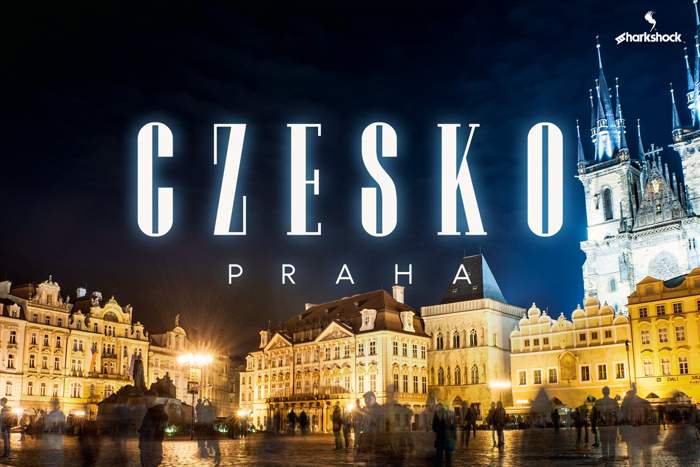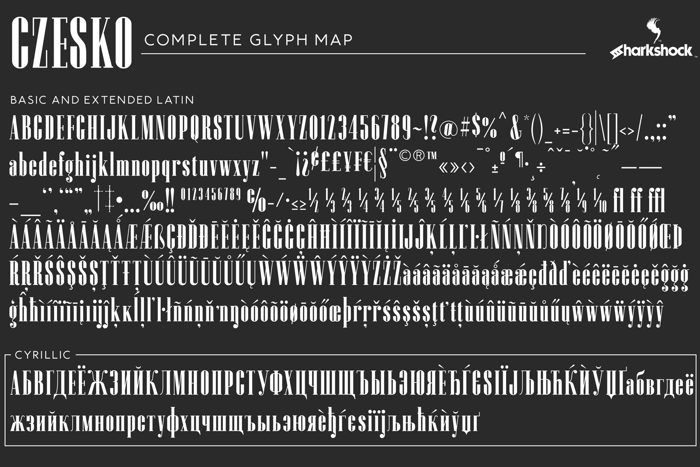
Czesko Font
by Dennis Ludlow
Tall, dark, and handsome; Czesko is a fancy display serif with a timeless, yet elegant look. The repetition of key features ensures contrast in line weight to provide high visibility at smaller sizes. Use it for a fashion logo, luxury brand, or magazine title. Basic Latin, extended Latin, diacritics, Cyrillic, punctuation, fractions, ligatures, and kerning are all included in the full version. The demo features basic Latin, limited punctuation, and numbers.